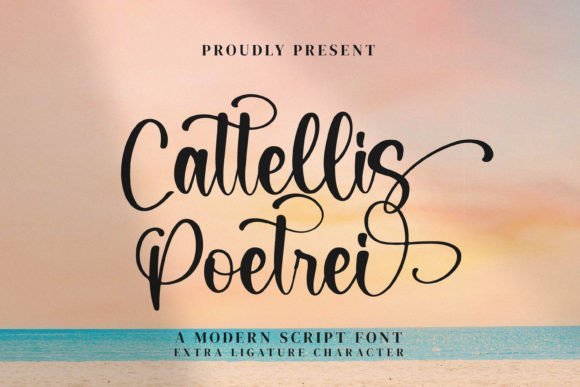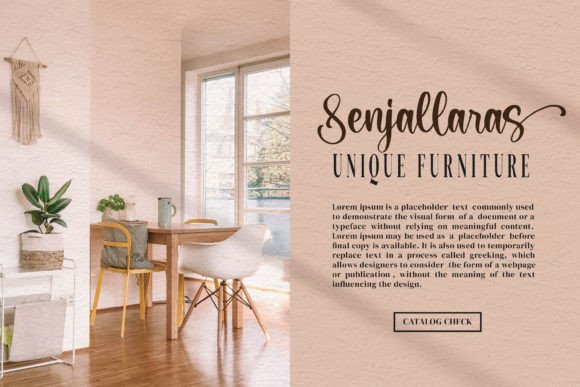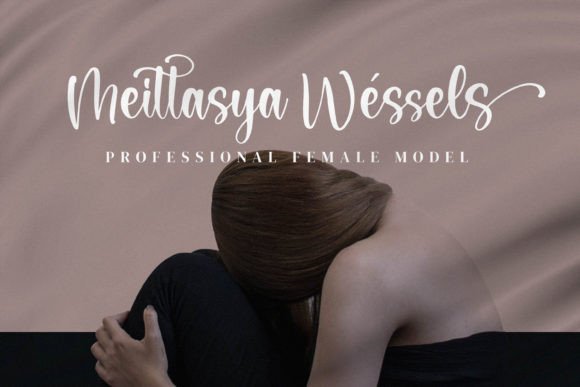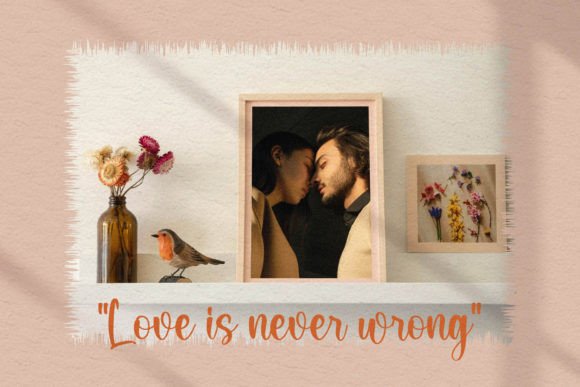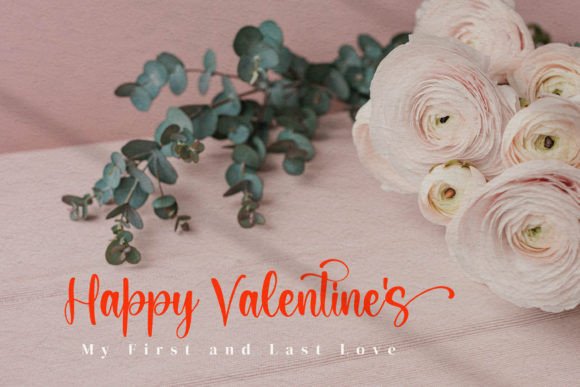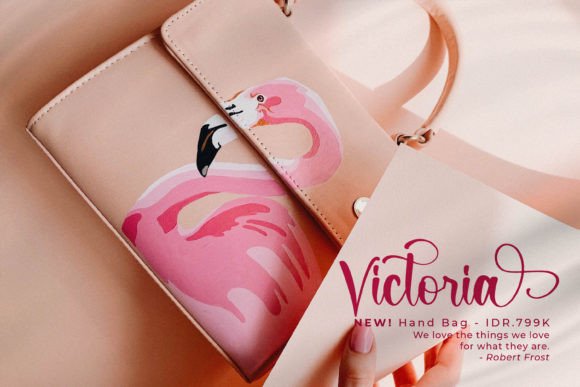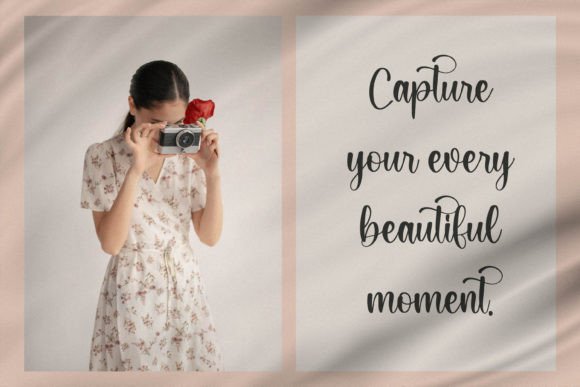
The Perfect Blend of Elegance and Versatility: Discover Cattellis Poetrei Font
Have you ever found yourself in the midst of a creative storm, pouring over endless designs and ideas until the perfect concept finally emerges? It’s that moment of pure inspiration that drives us to push the boundaries of our creativity. For designers, it’s about finding the right tools to bring their vision to life, and that’s exactly where Cattellis Poetrei Font comes in – a delicate and elegant handwritten font that will captivate your audience and elevate your designs.
This beautiful font is not just a pretty face; its well-balanced letters and distinct style make it an invaluable asset for any designer looking to add a touch of sophistication to their work. Whether you’re crafting a logo, creating a marketing campaign, or simply adding a personal touch to your social media posts, Cattellis Poetrei Font is the perfect choice to make your designs truly stand out.
Cattellis Poetrei Font Key Features
- Unique Characteristics: Ornate, elegant script font with handwritten feel, ideal for invitations, wedding stationery, and other special occasions
- Font Style: Script, Calligraphy
Cattellis Poetrei Font Review
Cattellis Poetrei Font is a beautiful, elegant script font that’s perfect for those looking to add a touch of sophistication to their designs. ✨ The flowing lines and delicate flourishes make it ideal for creative projects, such as invitations, greeting cards, and watercolor-style artworks.
One of the standout features of Cattellis Poetrei Font is its versatility. ✨ It can be used in a variety of settings, from formal events to whimsical illustrations. The font’s subtle texture and nuanced letterforms add depth and character to any design.
- ⚠️ The font may not be suitable for large block of text, as it can become overwhelming and difficult to read.
- ⚠️ The font’s delicate nature may not be ideal for digital displays, where the lines and flourishes can become distorted or fuzzy.
- ⚠️ The font’s unique style may not be to everyone’s taste, so it’s essential to test it in different contexts before committing to a design.
Cattellis Poetrei Font is a beautiful, high-quality font that’s perfect for designers looking to add a touch of elegance to their projects. While it may have some limitations, its versatility and unique style make it a valuable addition to any design library. With careful use, this font can elevate even the most mundane designs to new heights of sophistication and creativity.
Cattellis Poetrei Font is a beautiful, elegant font perfect for wedding invitations, formal events, and luxury branding. To get the most out of it, use it sparingly and in combination with other elegant fonts. Use it for headings and titles to add a touch of sophistication to your designs.
Some common use cases for Cattellis Poetrei Font include:
- Formal event invitations and programs
- Luxury branding and packaging
- High-end advertising and marketing materials
Alternatives to Cattellis Poetrei Font
Great Vibes is a beautiful, elegant script font perfect for creating a luxurious and high-end feel in your designs. It’s ideal for use in wedding invitations, luxury branding, and high-end packaging. Great Vibes has a similar whimsical feel to Cattellis Poetrei Font, but with a more refined and sophisticated look.
Carolyna Pro is a modern script font with a elegant and sophisticated feel. It’s perfect for use in high-end branding, luxury packaging, and editorial designs. Carolyna Pro has a more refined and polished look compared to Cattellis Poetrei Font, making it ideal for use in more formal and professional designs.
Alex Brush is a beautiful, handwritten script font perfect for creating a personal and emotional feel in your designs. It’s ideal for use in wedding invitations, greeting cards, and other personal stationery. Alex Brush has a more rustic and organic feel compared to Cattellis Poetrei Font, making it perfect for use in more casual and creative designs.